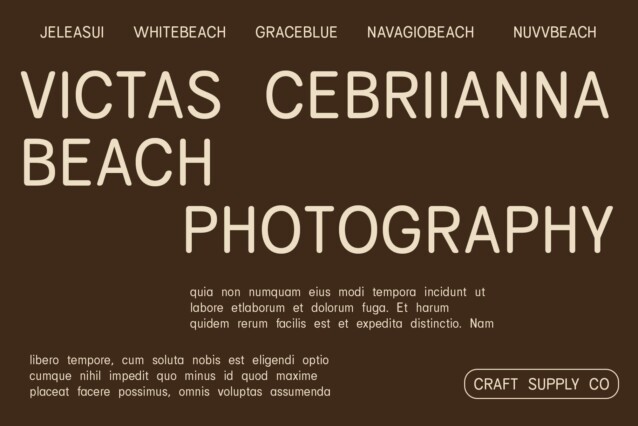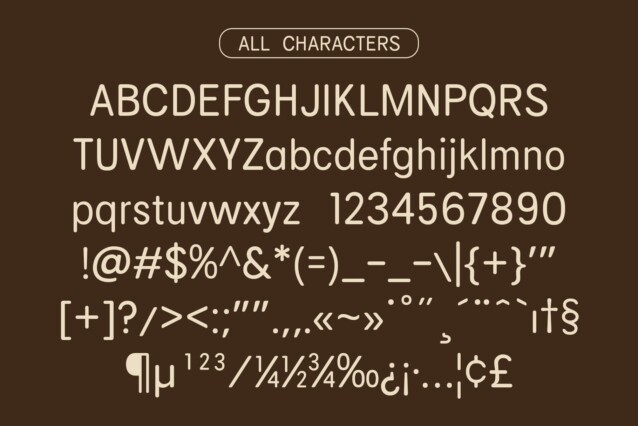
Campeno Rounded Font
Campeno Rounded Font is a sans serif typeface with low contrast and rounded stem endings, exuding a welcoming and approachable vibe.
Softened Contrast for Comfort With its low-contrast design, This font offers a gentle visual experience, ensuring readability and comfort across various applications.